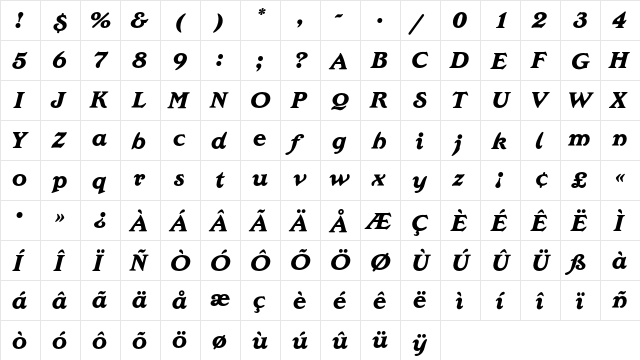
EdwardianEF ExtraBoldIta
Design Context for EdwardianEF Typeface
EdwardianEF takes a measured approach to typography — its balanced proportions and neutral character make it a reliable workhorse for both digital and print work. Its bold stroke weight gives it real presence on the page.
Pro Tip: Pair EdwardianEF with a font of contrasting weight or personality to build a more expressive typographic hierarchy.